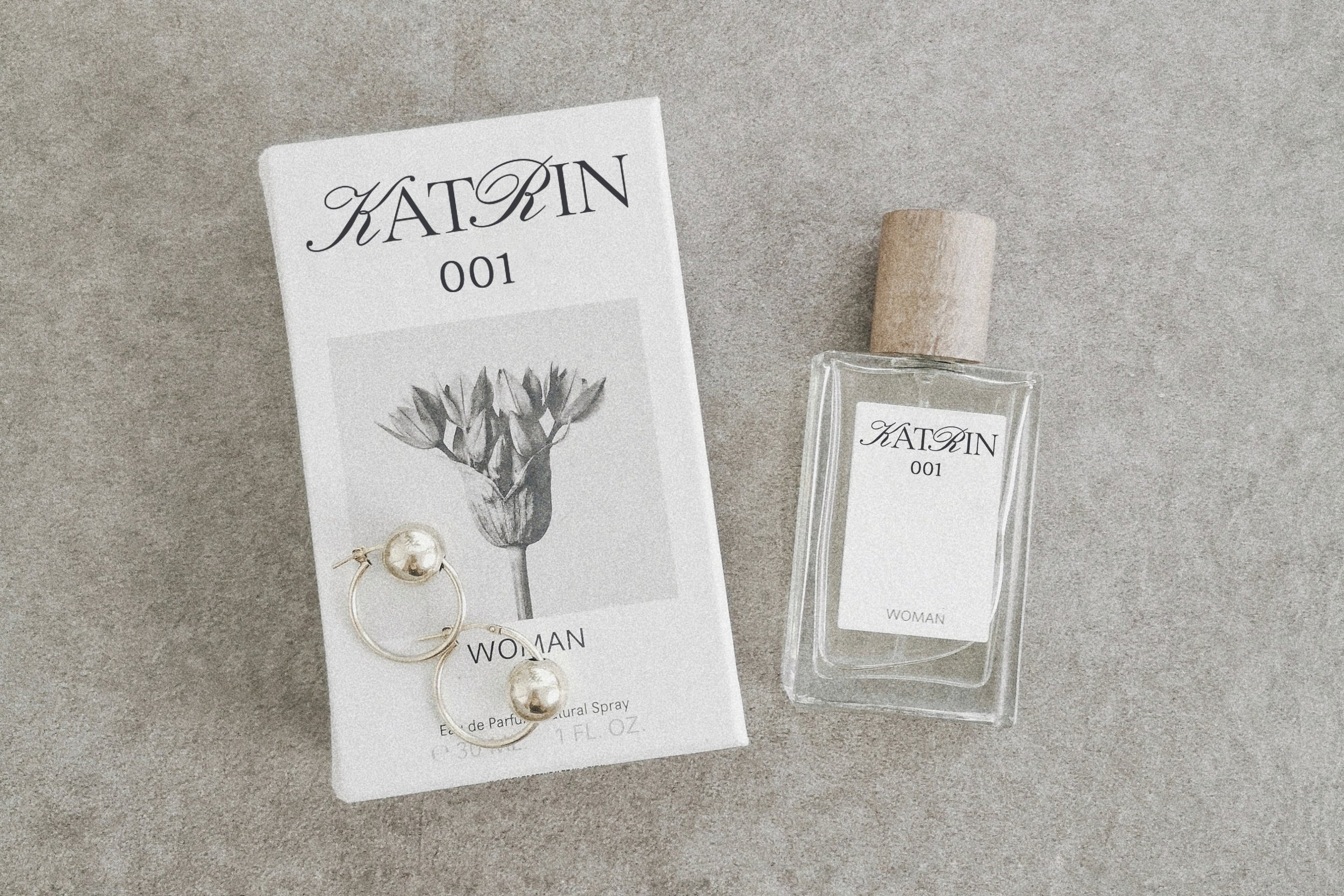
Loren Blake Serif & Script Font Duo
Meet Loren Blake, the essential Serif & Script Font Duo for every designer's toolbox. This modern and sophisticated pairing is designed to convey elegance in every stroke. Loren Blake excels in bringing your creative visions to life, from editorial spreads to personalized logos. Embrace the charm of this font duo and infuse your design work with its signature style for an impactful and refined aesthetic.